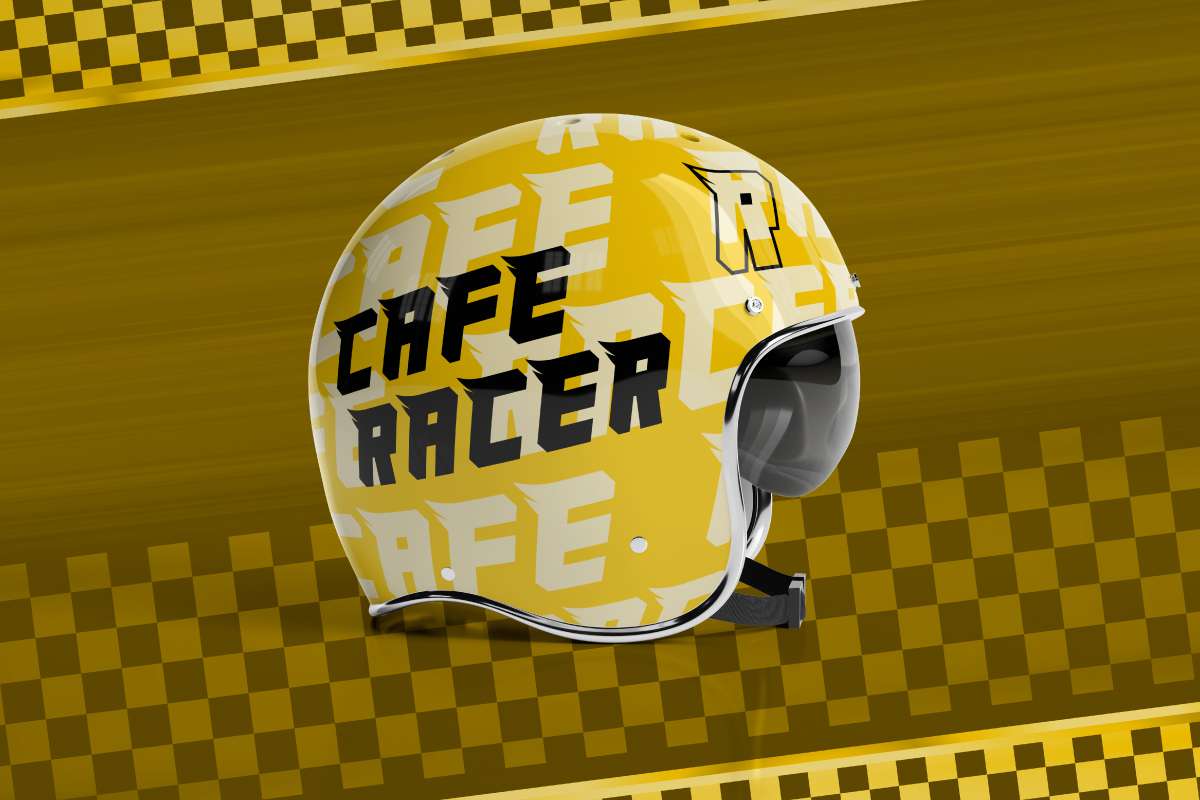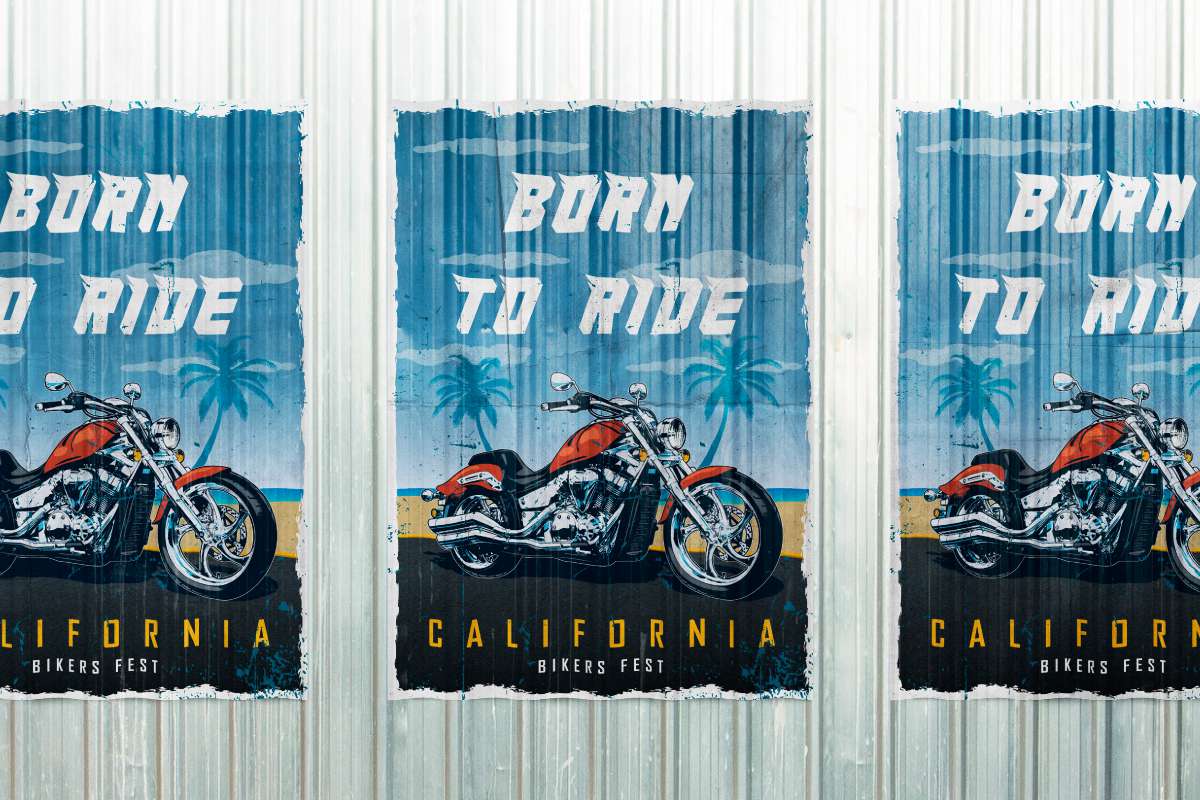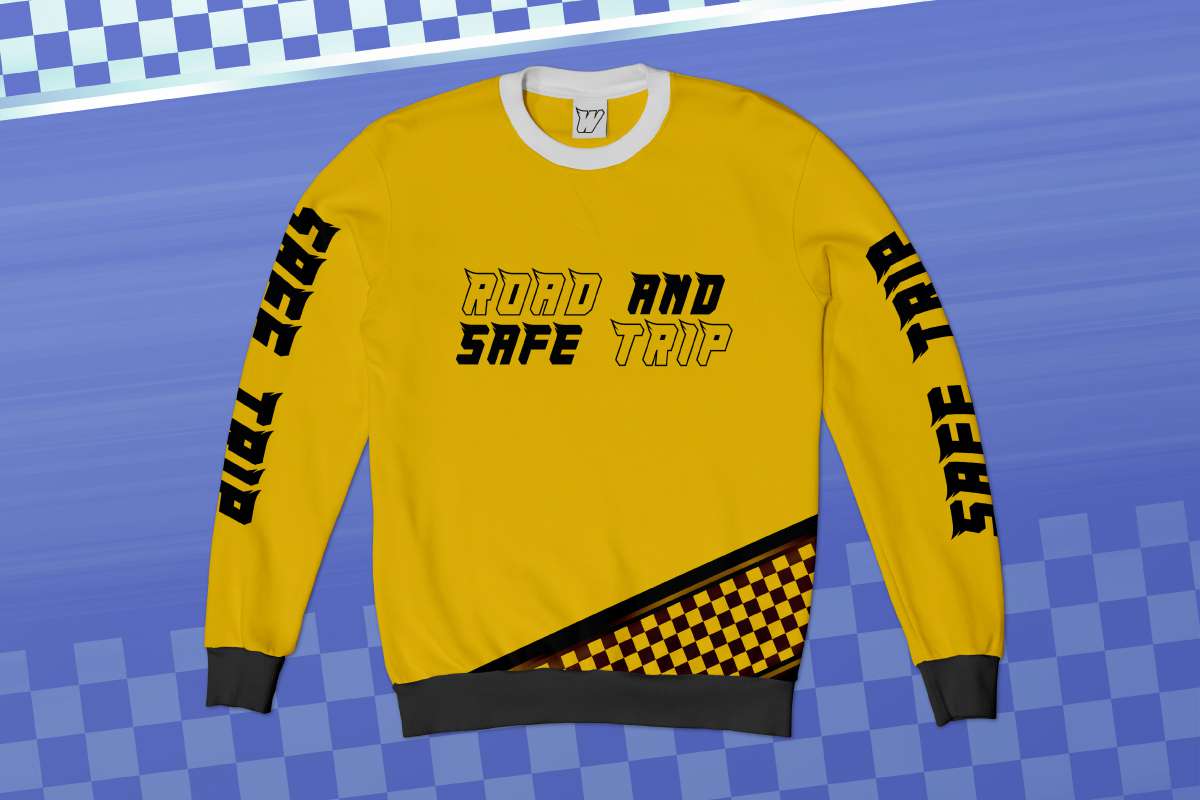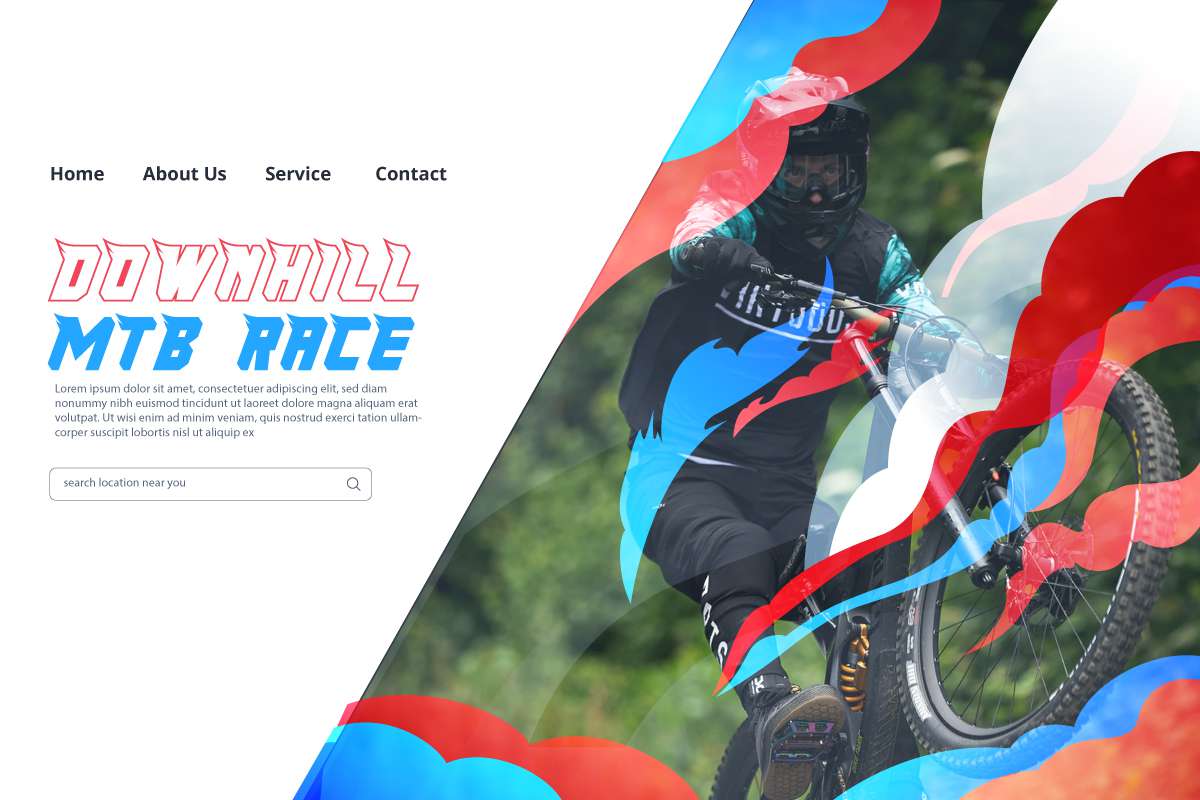
WingRace Display Font
This is a display sans serif font family with unique characters inspired from racing, gaming and futuristic industries. The style of this font are modern, techno, strong, masculine, sporty etc. Great for logo, brandings, headlines, signage etc. WingRace Font come with strong unique characters that will make your designs standout. The font will be awesome for many industries including : sports, techno, festival, games, movies etc.